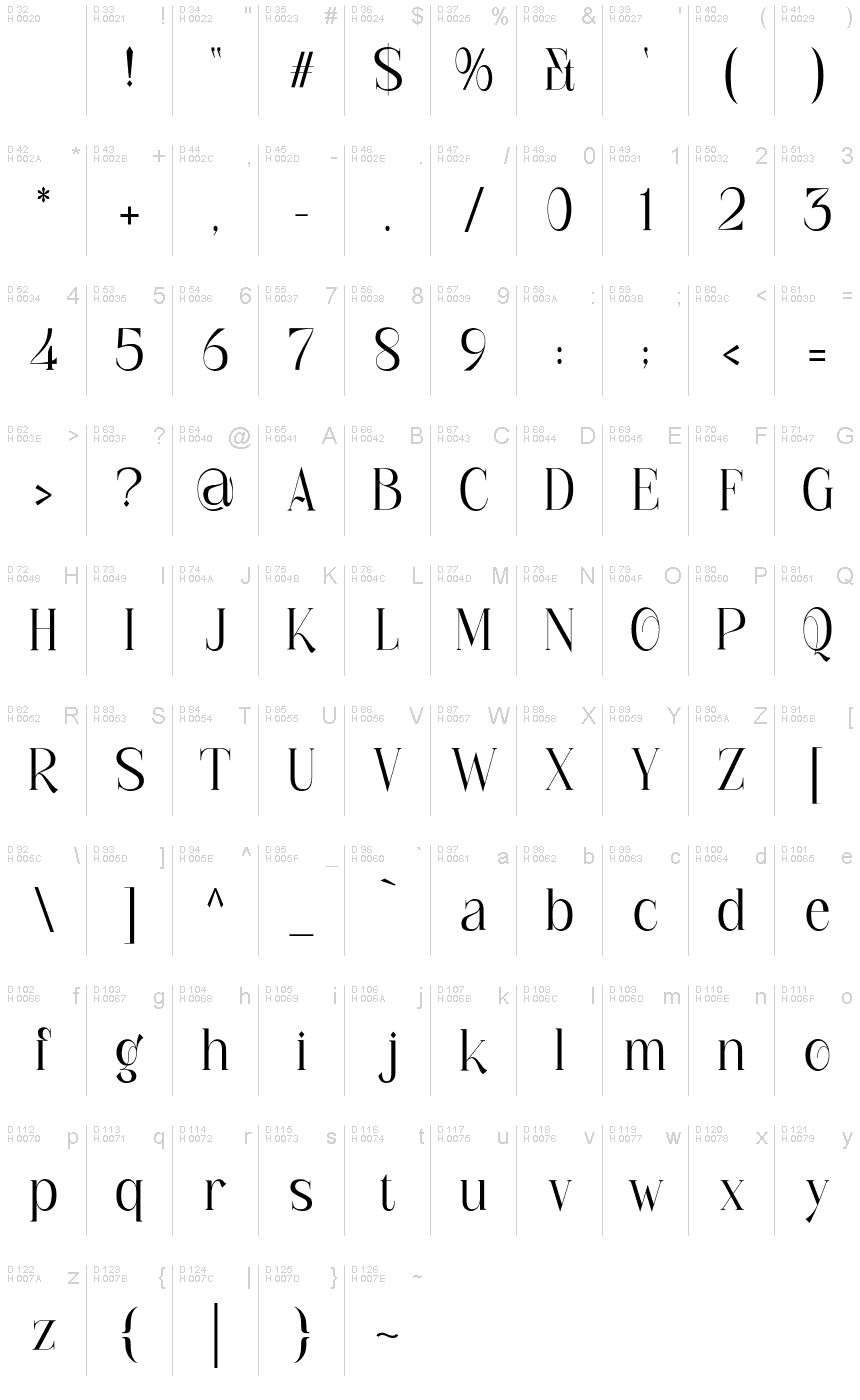
Ragiel
Ragiel is a basic, light, serif font created by Tri Kuncoro. Its narrow proportions make it well-suited for projects such as headlines and body text that require a delicate touch.